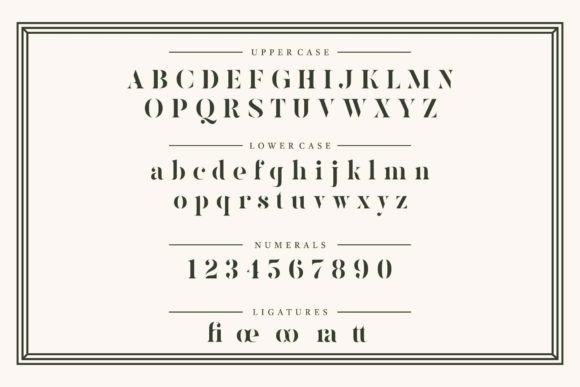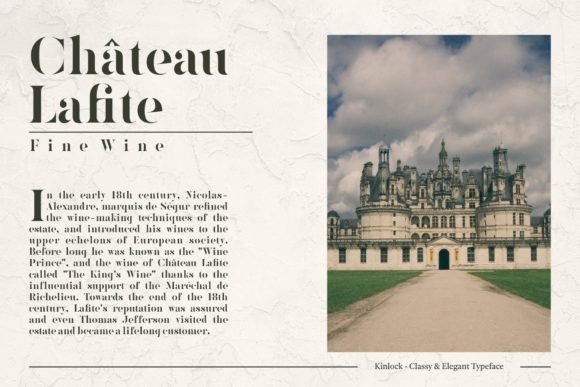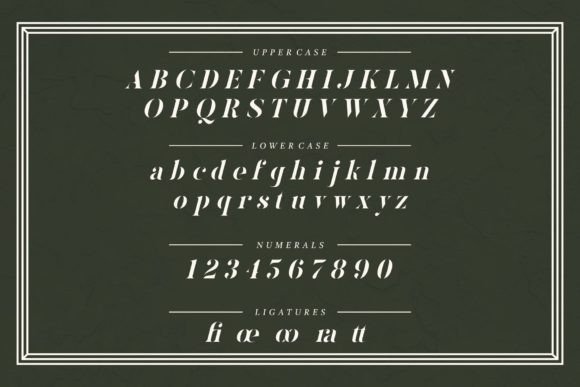
Kinlock Font: Elegant Stencil Serif for Luxury Branding & Logo Design
About the Kinlock Font
Introducing the Kinlock Font, a beautifully crafted typeface designed to elevate your creative projects. Kinlock is a new elegant stencil serif font featuring a regular & italic version.
Its luxurious lines will work perfectly for any sophisticated design project. Perfect for luxury product packaging, labels, branding, advertising & much more.
Kinlock includes all standard glyphs plus a few essential ligatures as well as multilingual characters.
Kinlock’s elegant stencil design excels in headlines, short text blocks, and logos, lending a sophisticated air to branding projects and high-end packaging. It’s equally effective for posters and short advertising copy where its refined aesthetic makes a strong statement. However, its limited x-height and distinctive stencil form make it less suitable for extended body text or user interfaces requiring high readability.
The font’s inherent formality pairs well with clean sans-serif fonts like Montserrat or Open Sans for a balanced contrast, or a more playful script like Pacifico for a sophisticated yet approachable feel. For a more modern take, a geometric sans-serif such as Futura could be used, enhancing the font’s geometric aspects.
Kinlock projects a personality of refined elegance and understated luxury. It is ideal for brands associated with premium products, sophisticated services, or classic styles. Avoid using it where a more approachable or informal tone is desired.
Kinlock Font Usage Examples
Kinlock Font Example